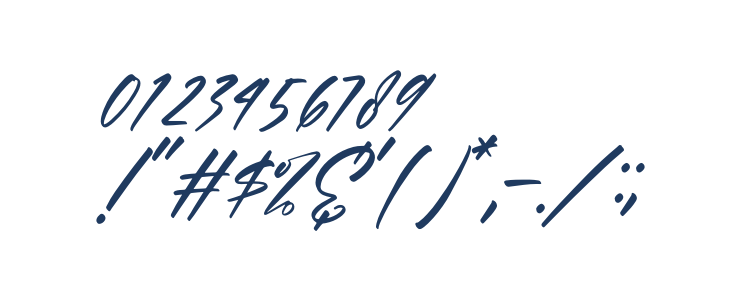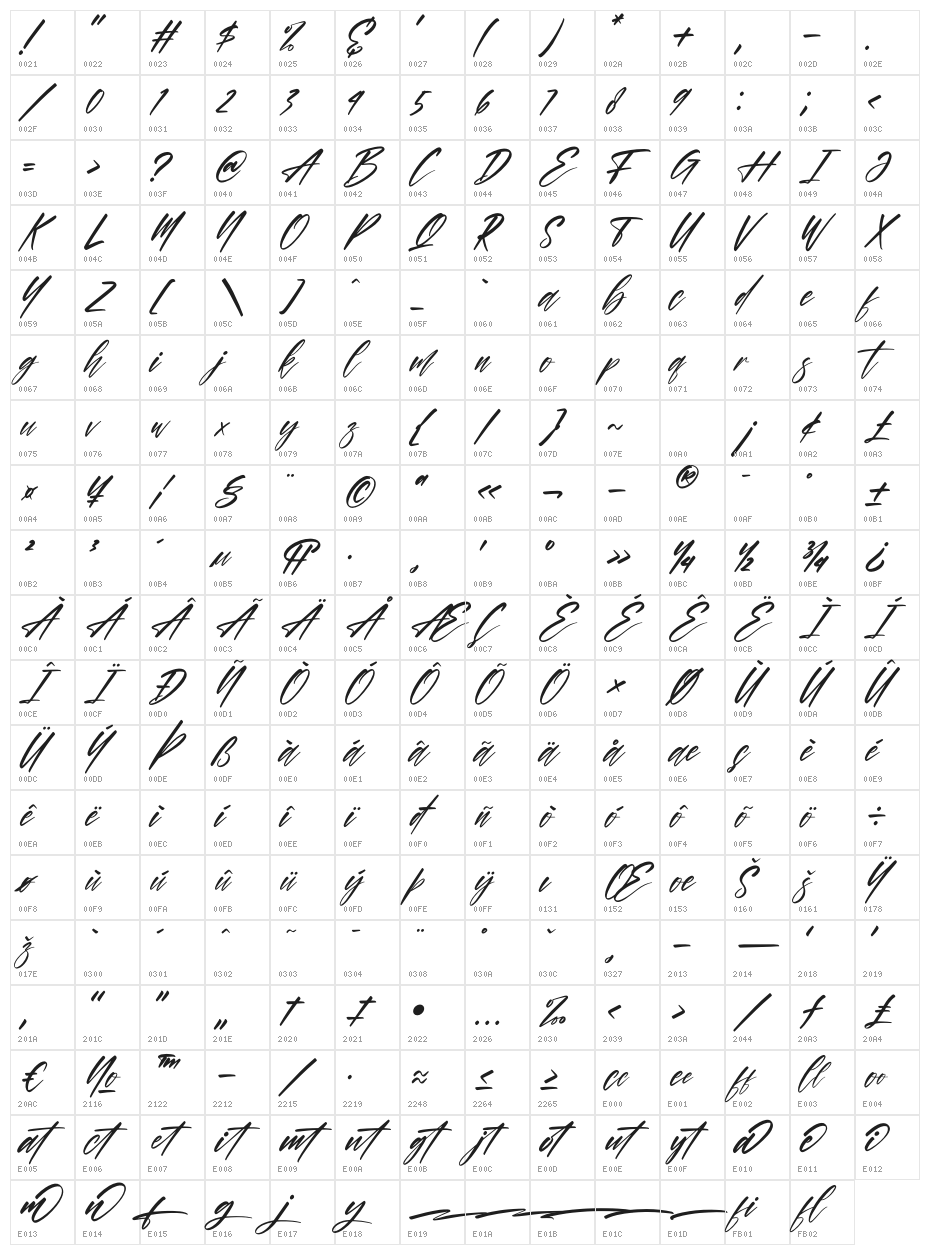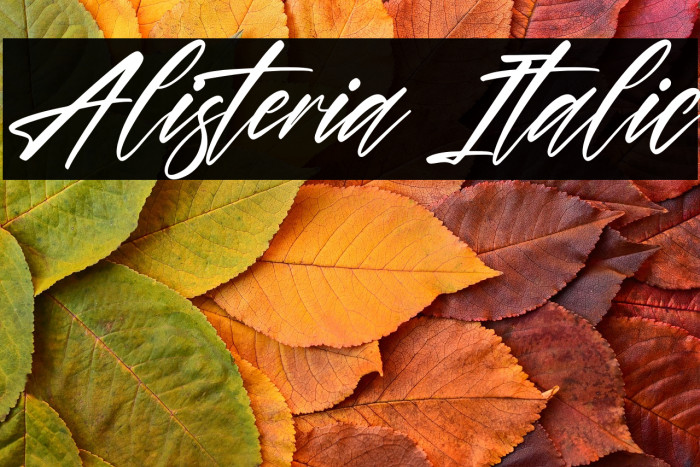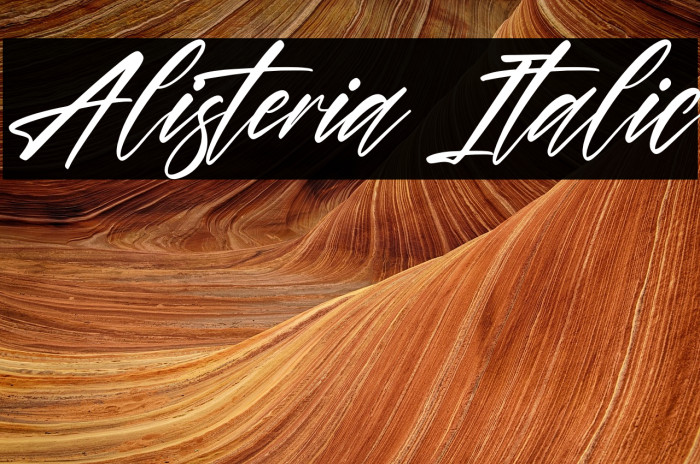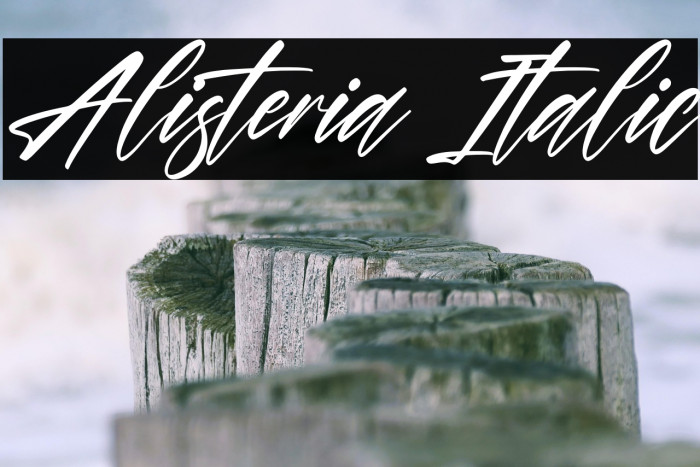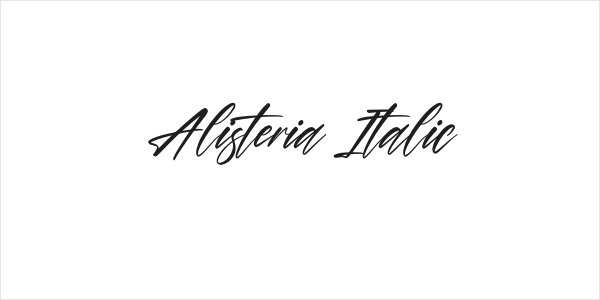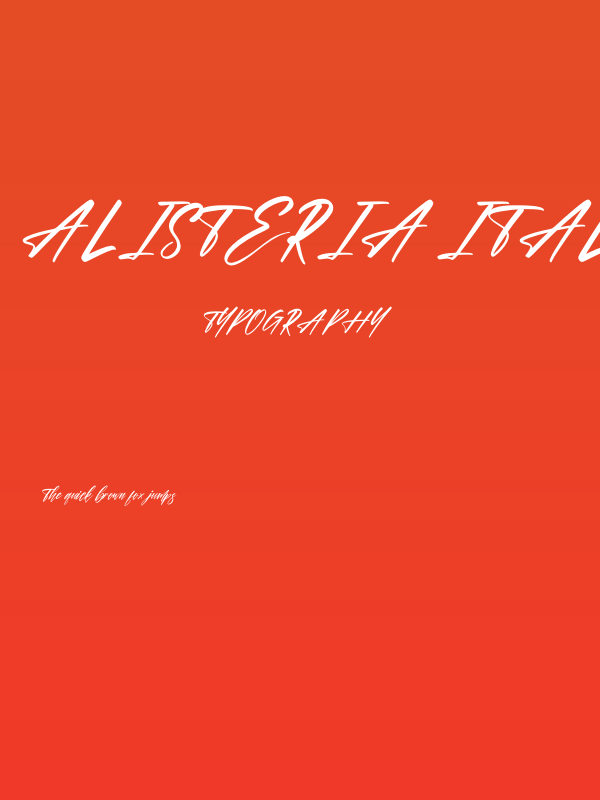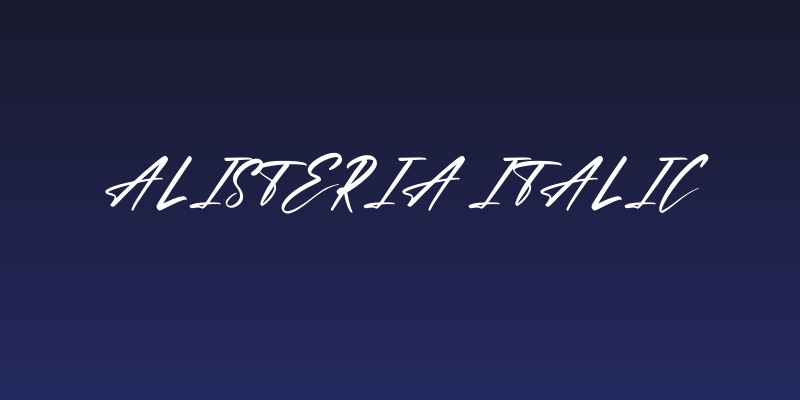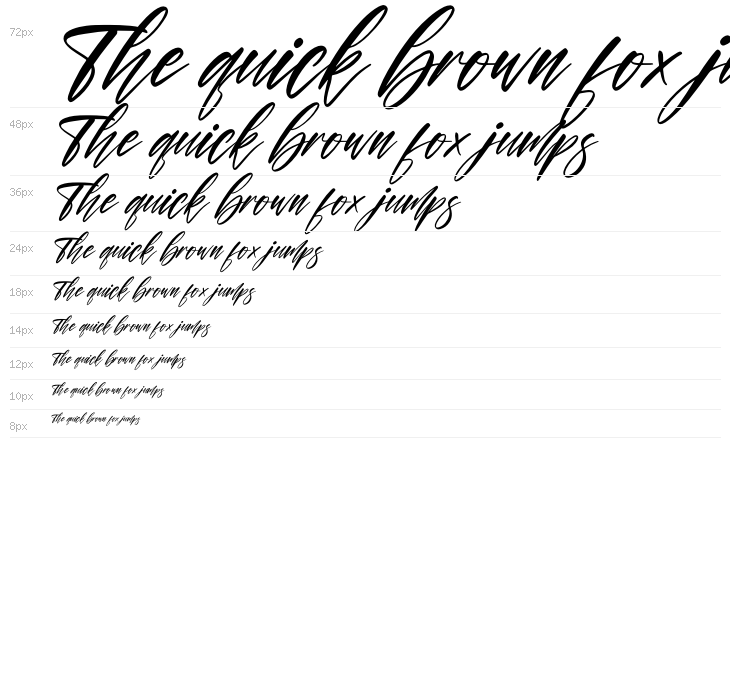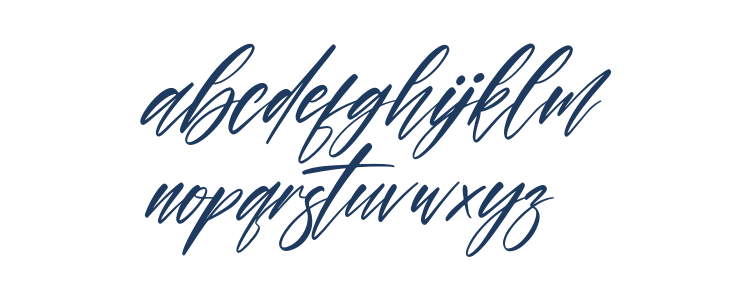
Alisteria Italic Font
Alisteria Italic Description
This font exudes a dynamic and energetic feel with its fluid, cursive style. The letters are slanted, giving it an italicized appearance that enhances its sense of motion and elegance. The strokes are bold and confident, with a consistent thickness that maintains readability while adding a touch of flair. The uppercase letters are particularly striking, with sweeping lines and dramatic curves. The lowercase letters complement them with a more subdued but equally stylish design. The numbers and special characters follow the same aesthetic, ensuring a cohesive look across all elements.